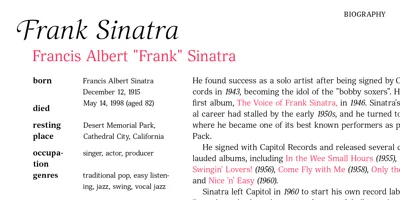
Selina Font
Selina Font is perfect for elegant feminine branding, sophisticated beauty product packaging, luxury spa and wellness marketing, refined fashion boutique logos, personal styling services, upscale salon signage, intimate wedding planning materials, and graceful lifestyle campaigns. This femininely sophisticated typeface excels in projects requiring refined elegance and personal charm where feminine grace meets contemporary luxury design excellence.
What makes Selina Font exciting is its beautiful embodiment of modern feminine sophistication through gracefully refined letterforms that capture the essence of confident femininity and elegant personal style. The font features delicately strong characters with sophisticated proportions and feminine details that convey grace, intelligence, and the contemporary appeal of empowered feminine identity. Its elegant character makes it perfect for beauty brands and lifestyle services targeting sophisticated women who appreciate refined aesthetics and personal empowerment.
Selina Font family includes multiple weights and elegant variations that enhance its feminine appeal while providing design flexibility for beauty and luxury lifestyle applications. The family typically offers thin, light, regular, medium, semibold, and bold weights, along with graceful alternates, feminine symbols, and elegant ornaments that complement beauty and luxury lifestyle design themes perfectly.
Whether you're developing beauty brand identity, creating luxury spa marketing, or designing sophisticated women's lifestyle campaigns, Selina Font provides the perfect feminine solution for projects requiring elegant sophistication and contemporary grace. This font's refined appeal and feminine elegance make it essential for brands serving discerning women who value quality, sophistication, and personal empowerment.
The gracefully crafted letterforms and sophisticated proportions of Selina Font create immediate connections to feminine elegance while maintaining excellent readability across all luxury applications. Its distinctive refined personality and feminine symbolism make it an invaluable tool for designers working with beauty, fashion, and women's lifestyle brands. Download Selina Font today and add sophisticated feminine elegance to your creative projects with this beautifully refined typeface that perfectly captures the essence of contemporary feminine grace and empowered personal style.